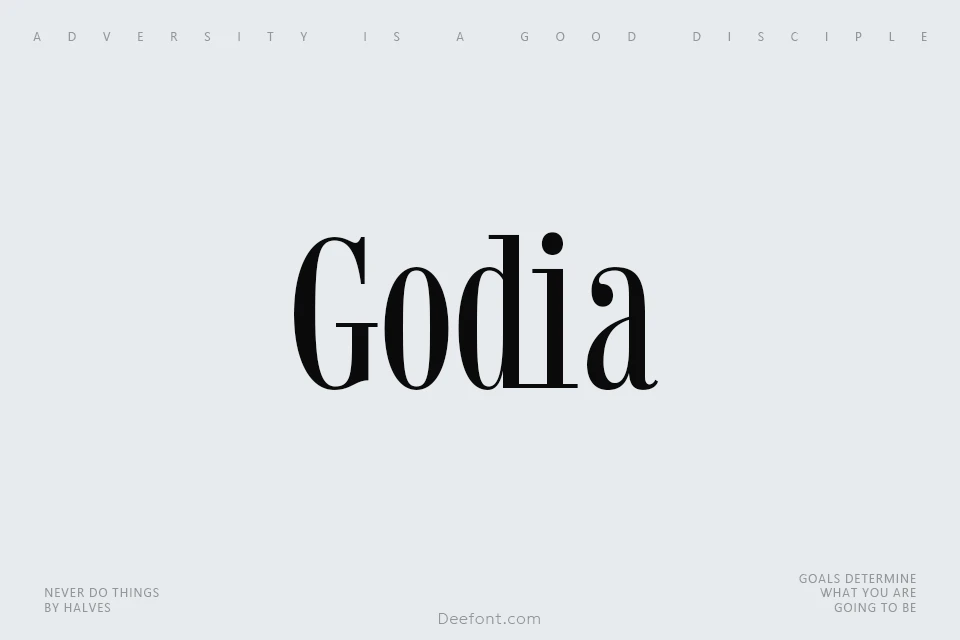
Godia Font
Godia Font is an elegant Serif typeface that combines classic sophistication with modern versatility. Its high contrast between thick and thin strokes gives it a refined and timeless appeal, making it ideal for luxury branding, editorial design, and creative projects. The font’s graceful curves and sharp serifs create a striking visual presence, perfect for headlines, logos, and invitations. Godia’s design embodies both beauty and functionality, ensuring readability while maintaining its artistic charm. Whether used in print or digital formats, this font adds a touch of class and professionalism to any project, making it a favorite choice for designers seeking elegance.